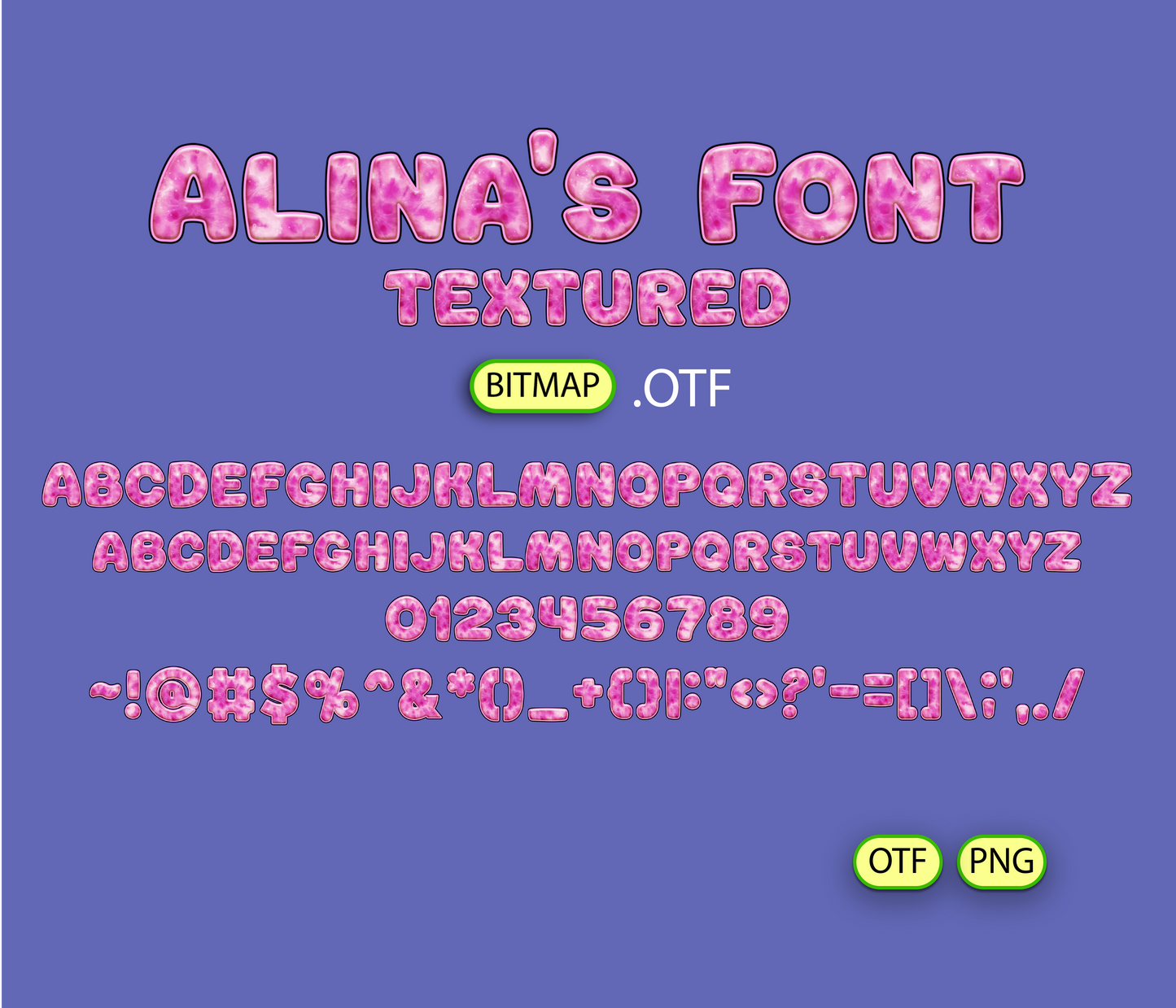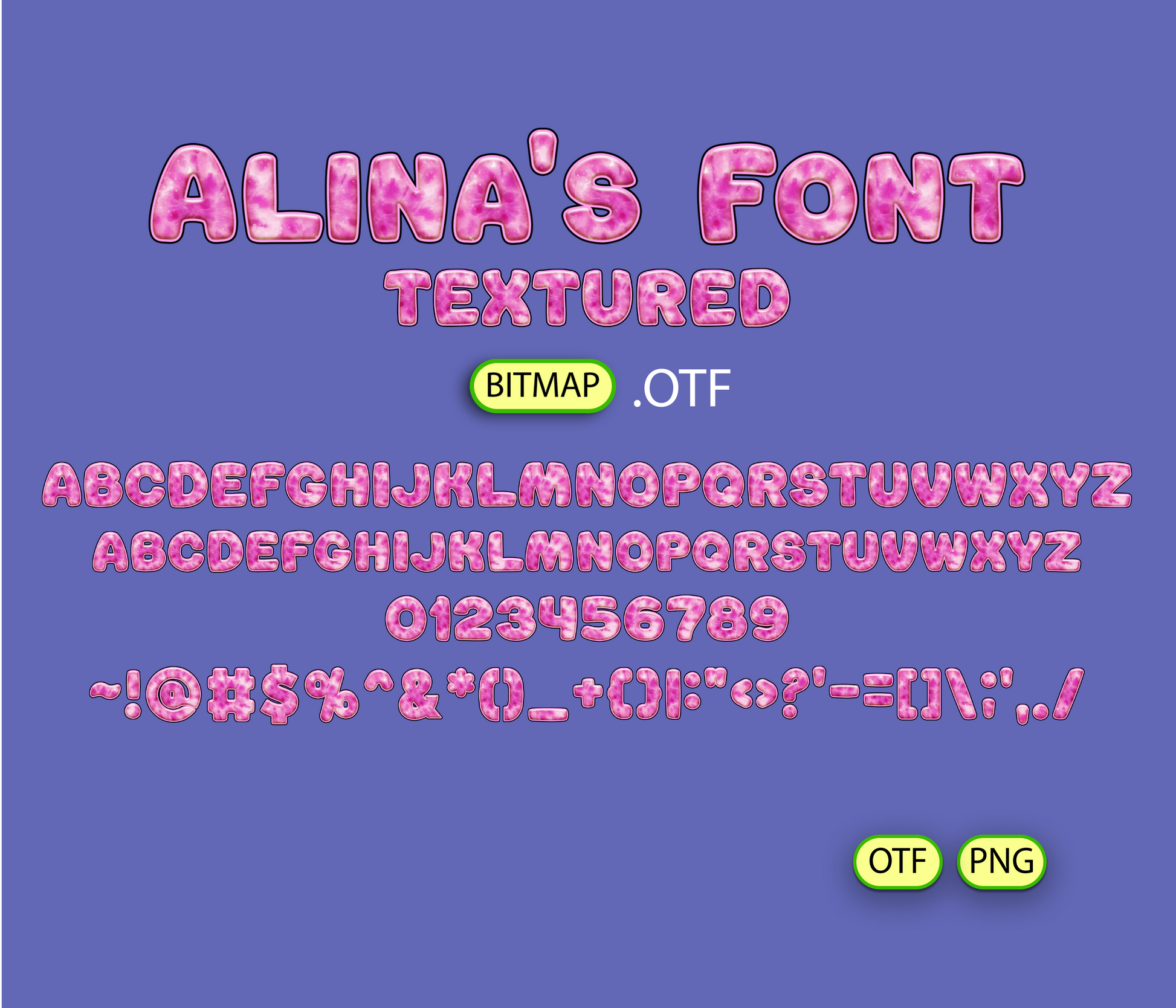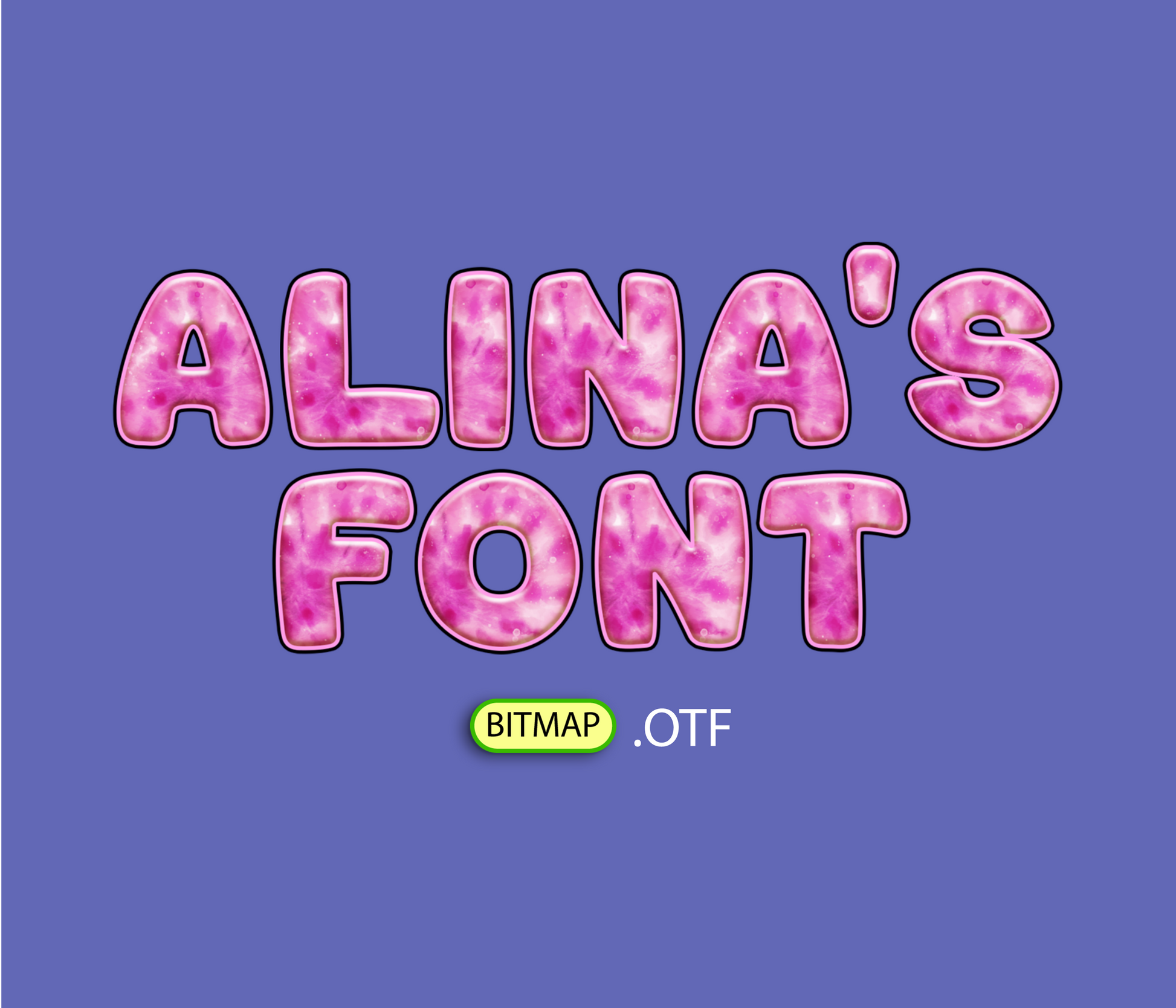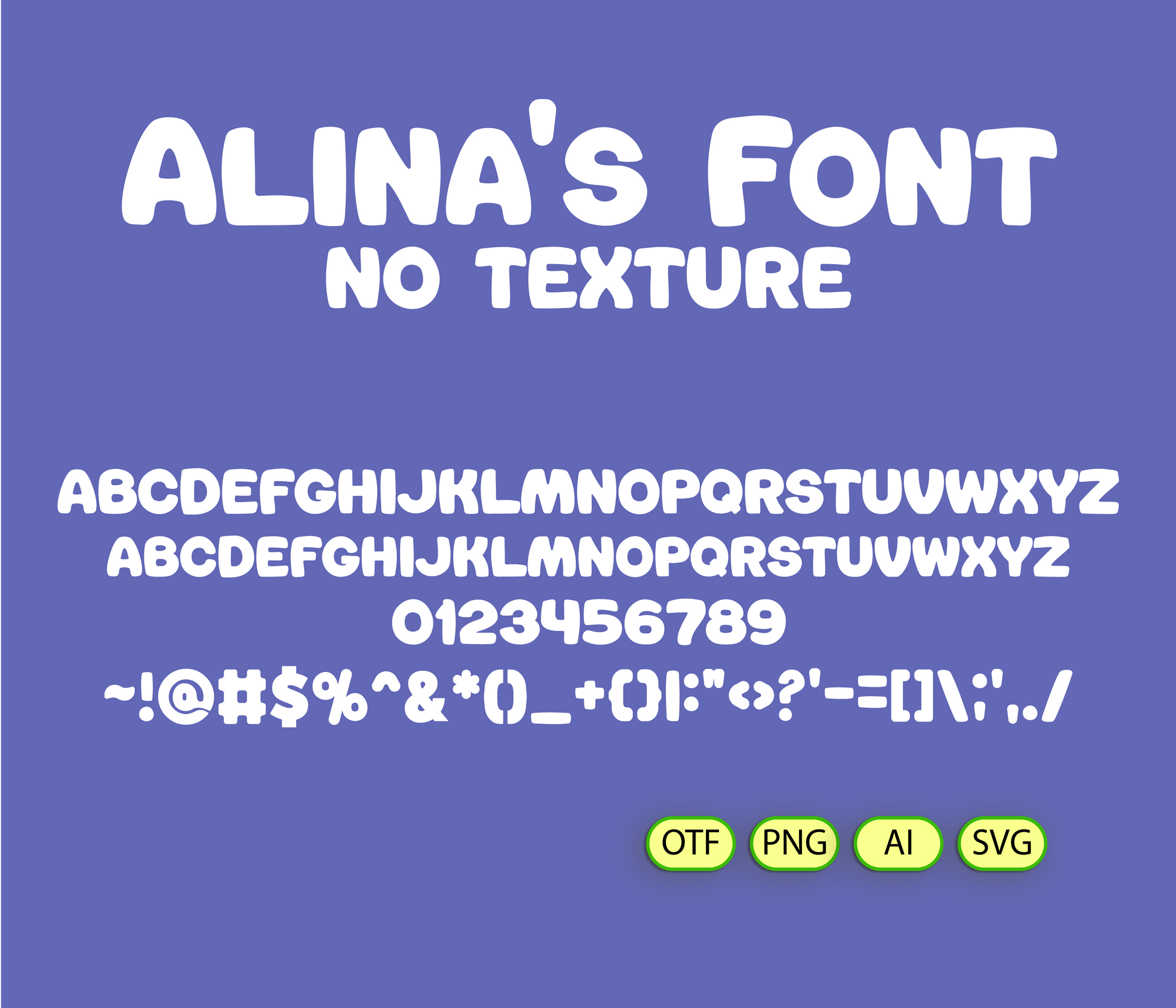
Flowing Watercolor Typeface Textured
Step into the dreamy world of artistic expression with our Flowing Watercolor Typeface, capturing the essence of paint bleeding across canvas and delicate color gradients. Perfect for art studios, creative agencies, wedding planners, and design professionals, this font brings the fluid, organic beauty of watercolor paintings to your projects. Create stunning invitations, artistic branding, or digital content with the soft, ethereal flow of paint and pigment dancing across paper.
Our Flowing Watercolor Typeface features soft, paint-stroke inspired shapes and artistic characters reflecting the spontaneous yet elegant aesthetic of watercolor artistry. Ideal for:
- Creative Business: Create captivating logos, packaging, and promotional materials for art galleries, design studios, and boutique craft shops
- Wedding Design: Perfect for invitations, save-the-dates, and celebration materials that celebrate romantic elegance and artistic flair
- Digital Media: Enhance websites, blogs, and social media with dreamy headers and graphics that express creativity and artistic vision
- Artistic Content: Add authentic character to portfolio materials, art exhibition promotions, and marketing materials for creative workshops
- Personal Projects: Bring artistic charm to greeting cards, scrapbooking, and home decor inspired by the aesthetics of watercolor paintings
Our Flowing Watercolor Typeface includes textured and non-textured variants, ensuring compatibility with all software, including Canva. This feature allows easy incorporation into designs for users of all skill levels.
Many seek an online font generator to mimic the look of the Flowing Watercolor Typeface. Steer clear! No generator can match the quality of our font, which comes in two versions: a textured colored font and a simple version, perfect for cutting machines.